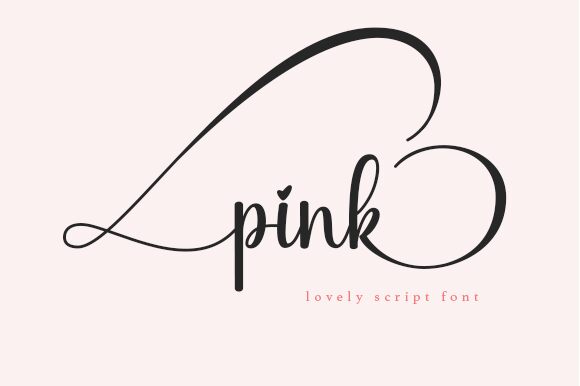
Cotton Pink, a gorgeous handwritten font designed by Danar Nugroho, is perfect for adding a touch of delicate elegance to your projects. With its semi-light weight and thin lettered style, this font exudes grace and sophistication.
Whether you're designing wedding invitations, creating beautiful logos, or crafting stunning social media graphics, Cotton Pink is the ideal choice. Its PUA encoding allows for easy access to an array of stunning glyphs and ligatures, ensuring that your designs will stand out from the crowd.
Cotton Pink